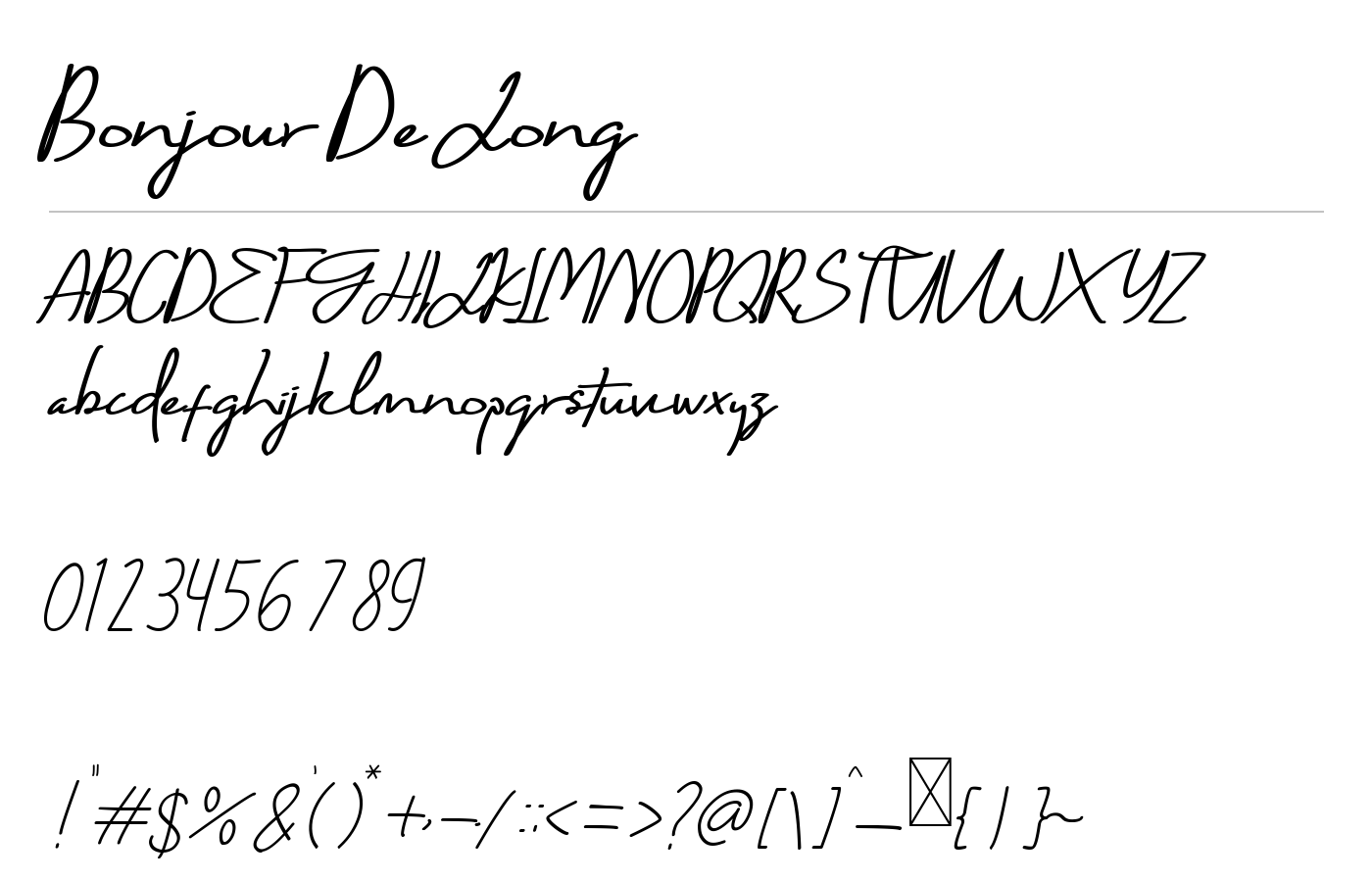
Bonjour De Jong is a delicate, elegant script font with a light weight and fluid, handwritten style that exudes personal charm and sophistication. Its slender, slightly slanted letterforms with smooth, calligraphic strokes make it perfect for adding a refined, artistic touch to branding, invitations, and headlines. This font works beautifully in projects where a graceful, intimate feel is desired, such as fashion, lifestyle, or luxury designs.
Bonjour De Jong Font